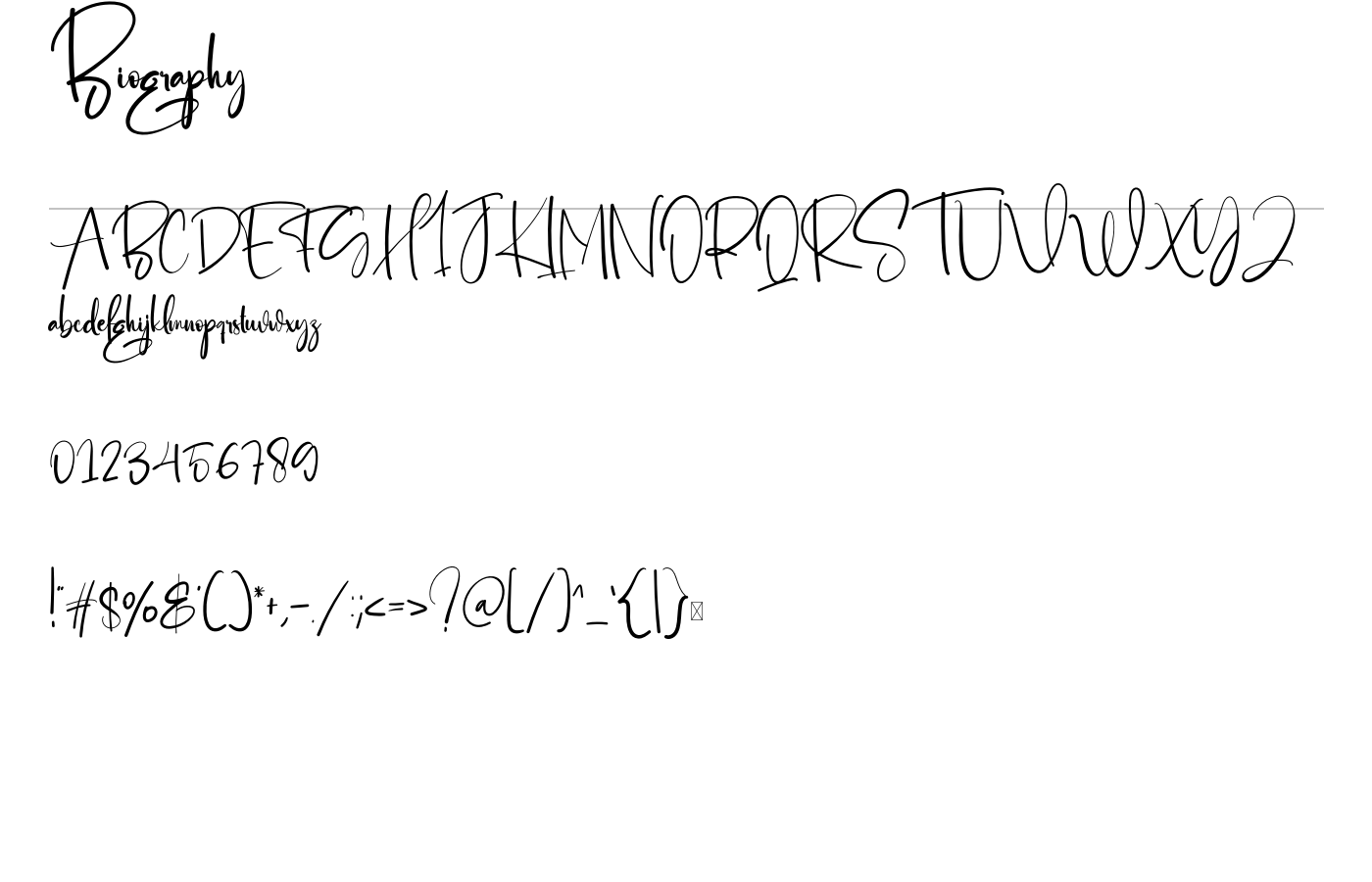
Biography is a delicate and expressive handwritten script font that combines elegant, flowing strokes with a playful, organic feel. Its tall, thin letterforms feature smooth curves and artistic loops, making it perfect for conveying a personal, creative touch in branding, invitations, and editorial design. This font works well where a stylish, intimate atmosphere is desired, lending sophistication without rigidity.
Biography Font
About Biography Font